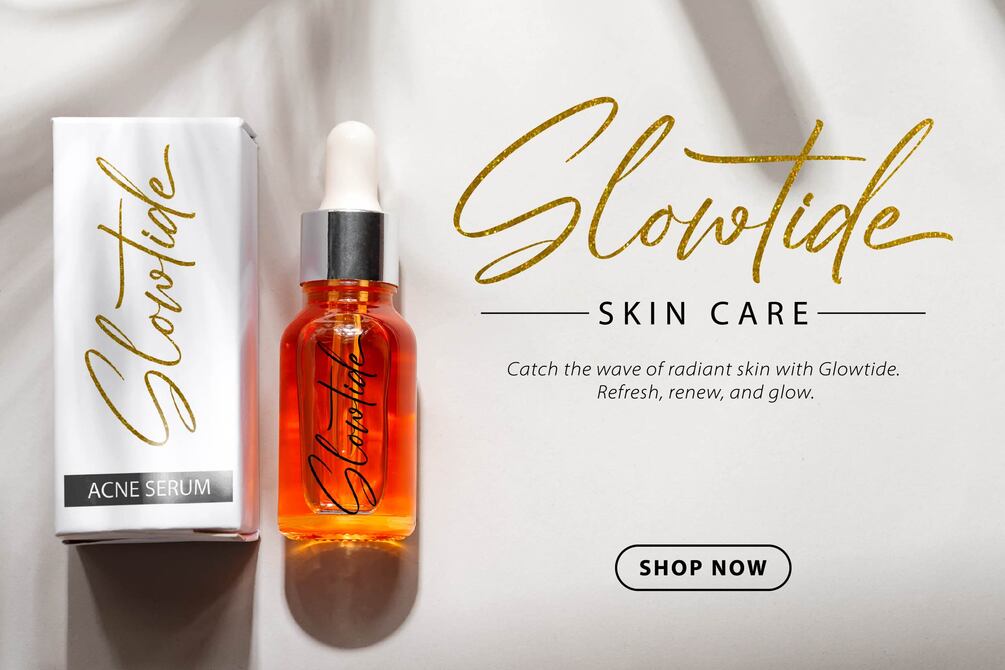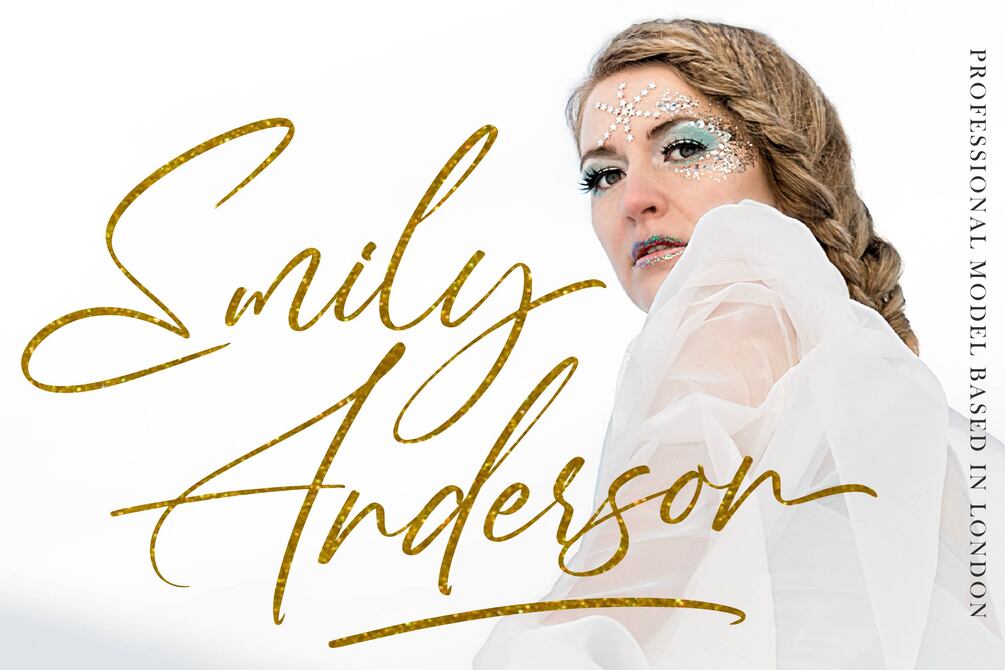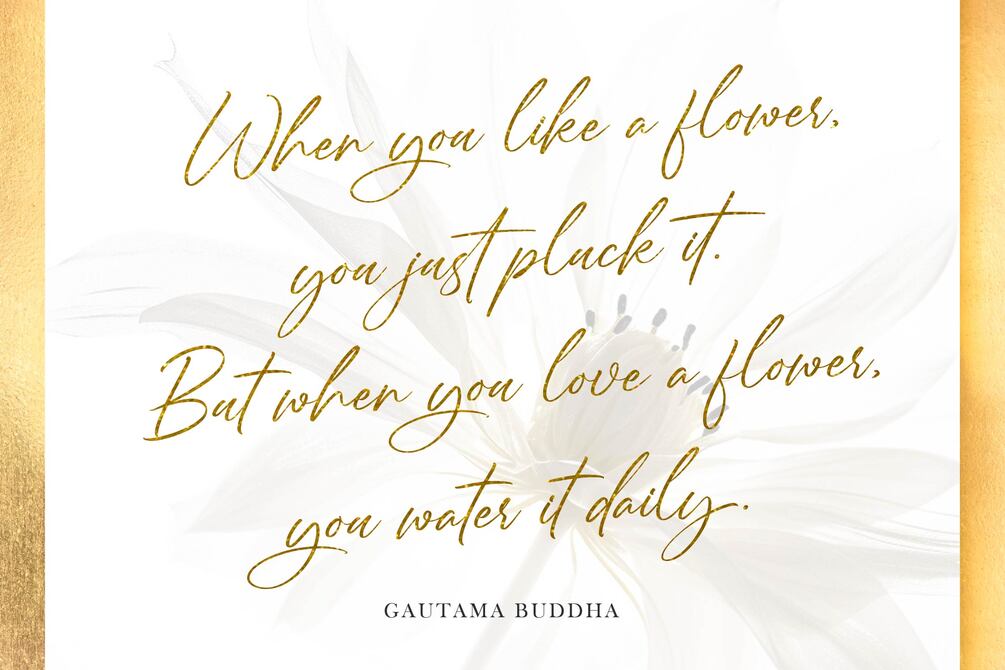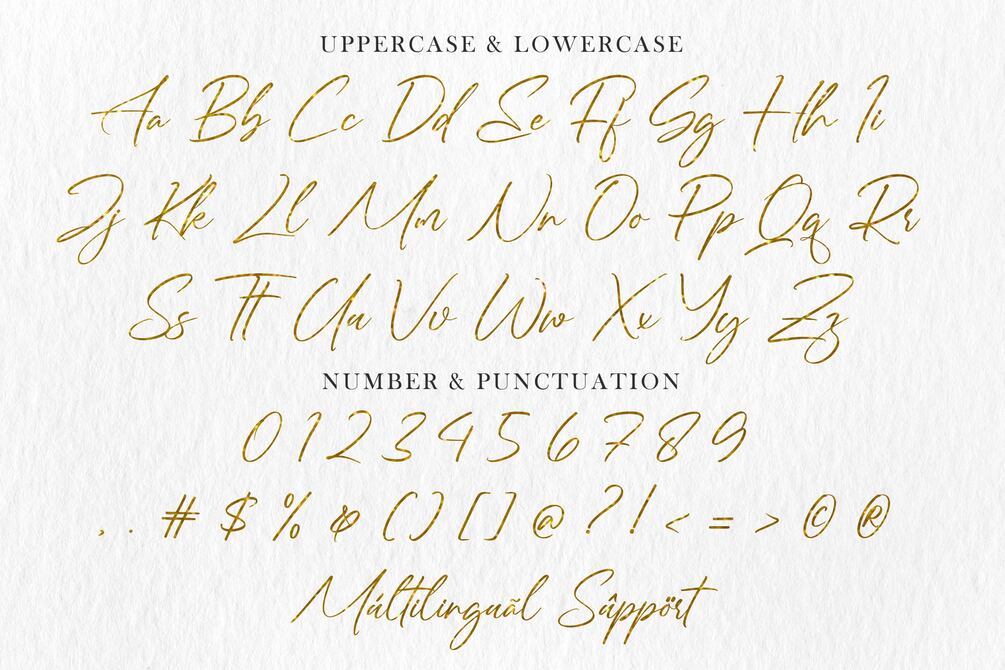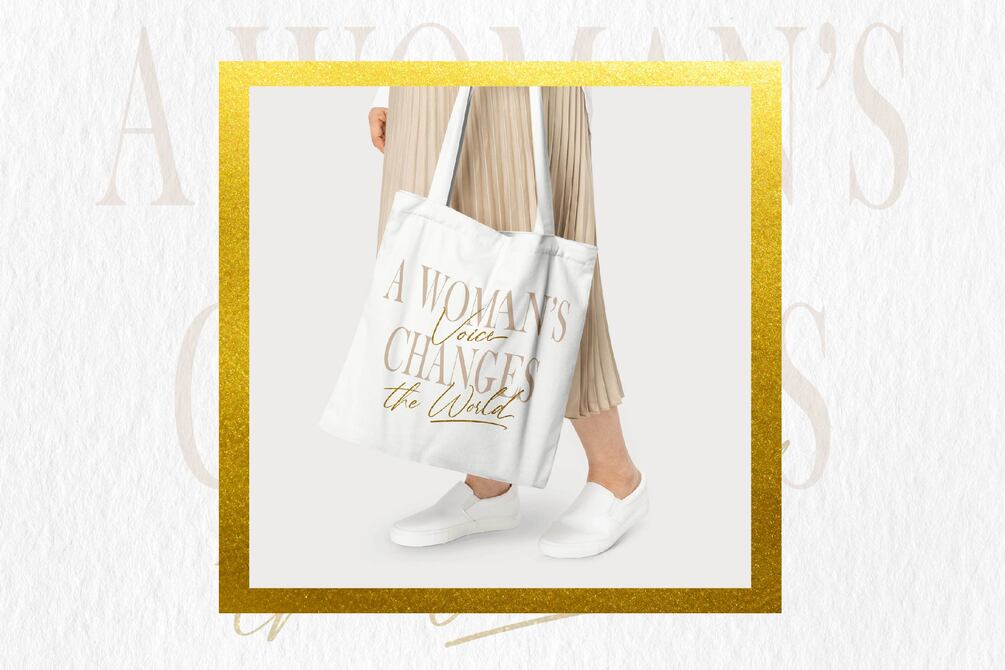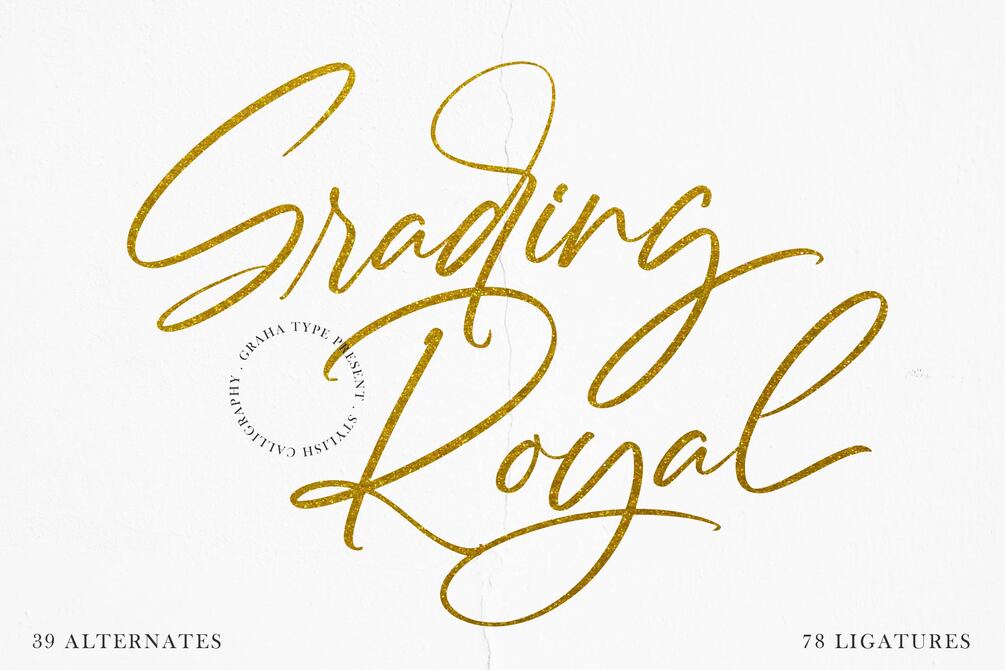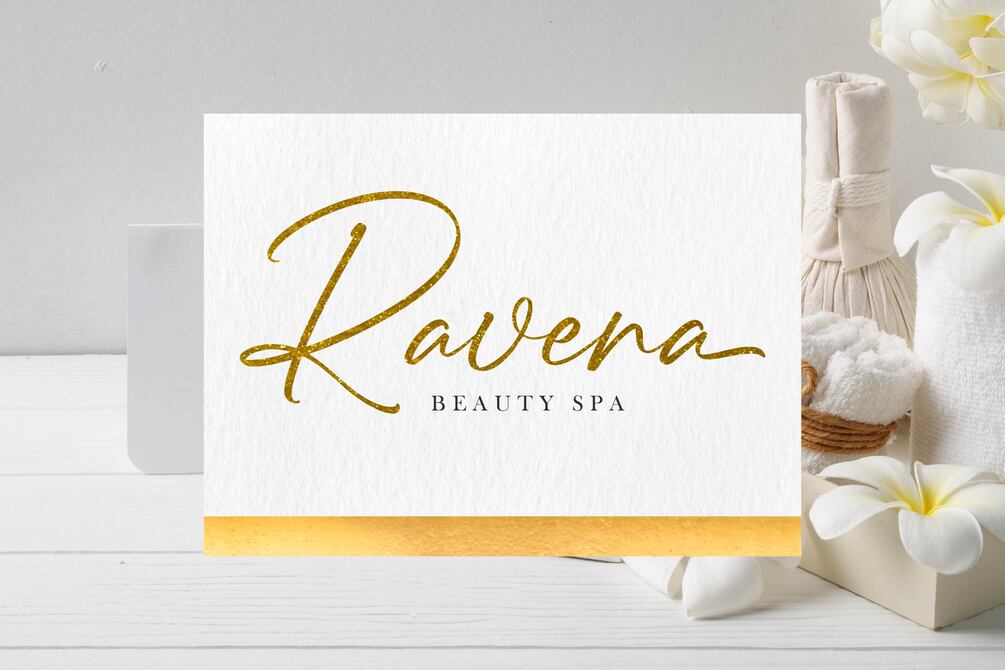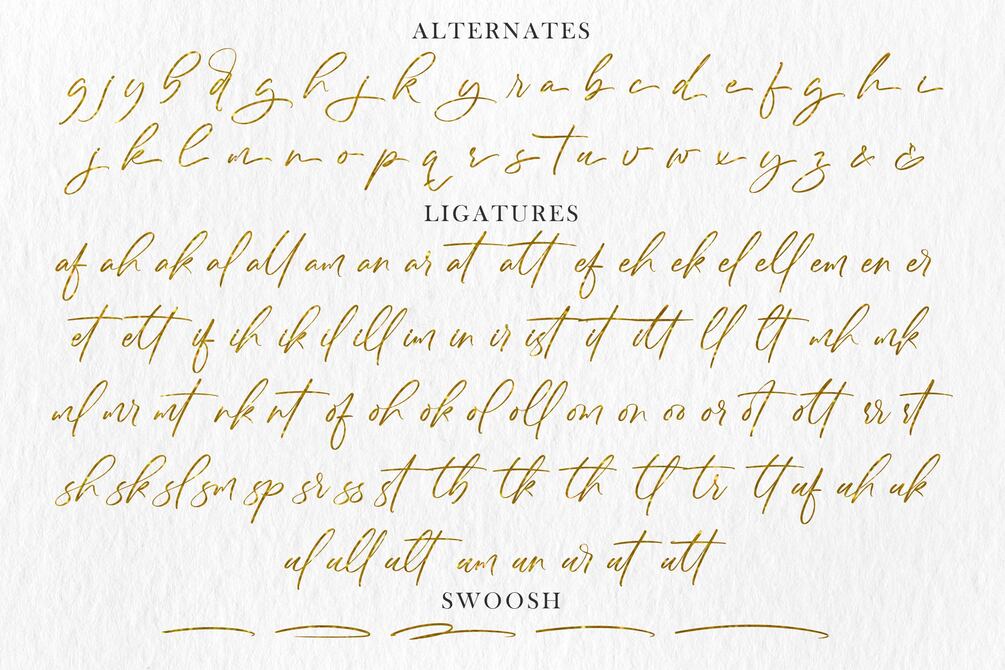
Grading Royal - Stylish Calligraphy Font
Grading Royal is a stylish calligraphy font with an elegant, luxurious feel, making it perfect for logotypes, branding, wedding invitations, and other prestigious designs. Its graceful curves and dramatic letterforms combine traditional charm with modern sophistication, offering a refined yet legible appearance. Ideal for special events like weddings or high-end brand launches, this versatile font adds a sophisticated touch to logos, brand identities, and invitations, bringing a sense of prestige to any design
Standard Glyphs
Alternates and Ligatures
PUA Encoded Characters
Multilingual Support